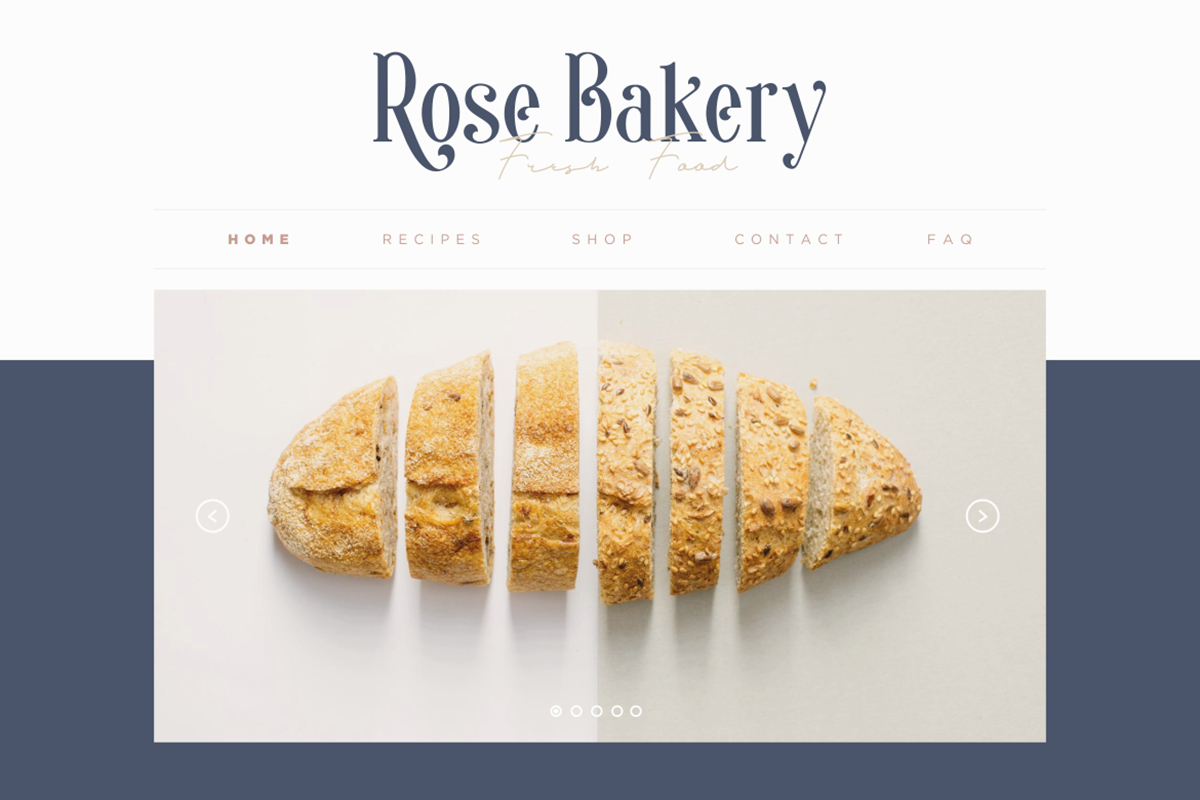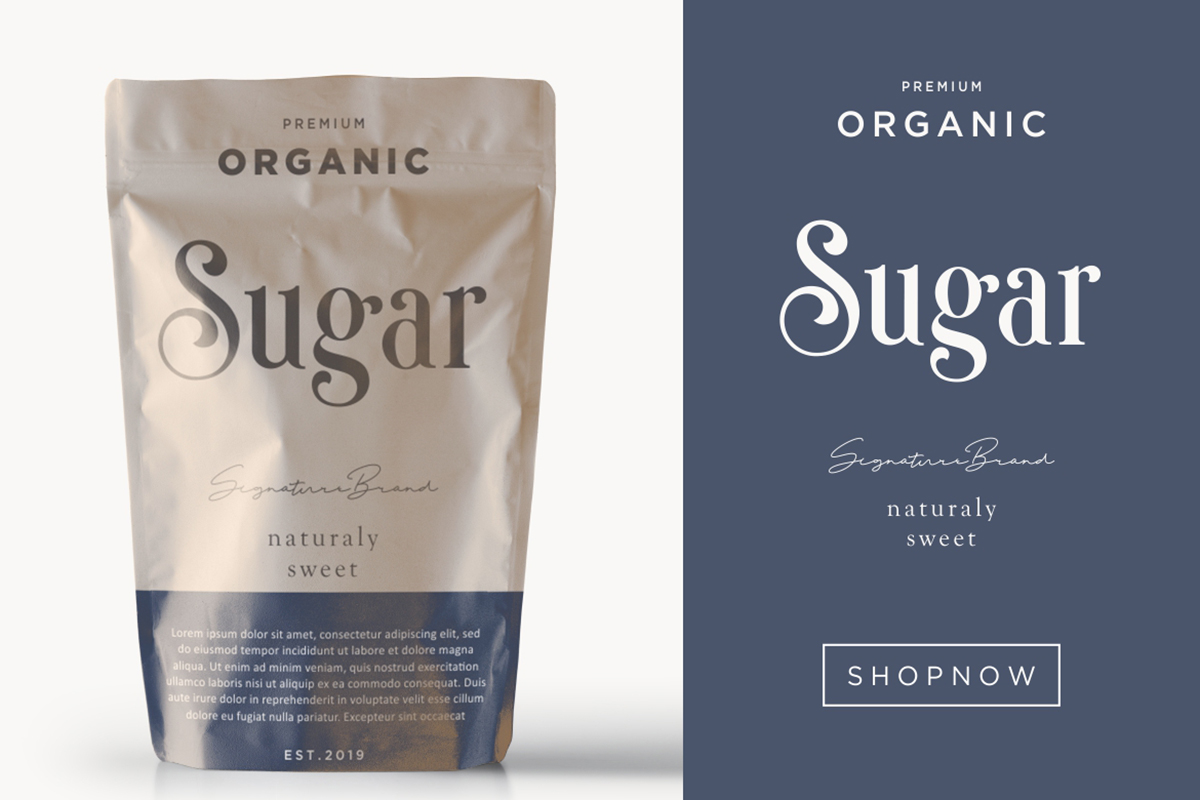
Sonia Free Font
Sonia Free Font is an elegant serif font designed with a lovely circle tail to create a classy font style. It perfectly represents a classic yet modern way. This free typeface was designed by talented Hansย Co. If you like it donโ€™t forget to check out the full version.